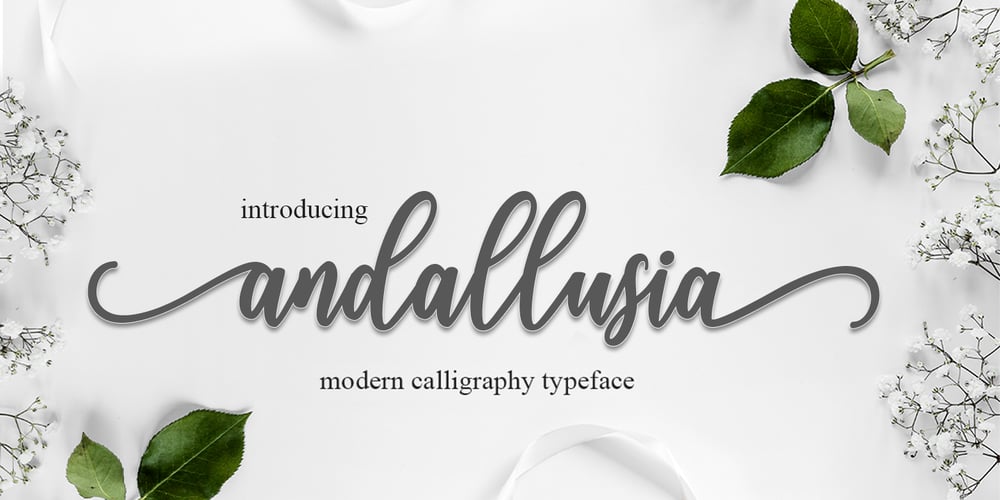
Andallusia Script Font Family was designed by Muhammad Rizal and published by MrLetters. Andallusia Script contains 1 styles and family package options. DescriptionAndalusia Script is perfect for branding, wedding invitations, magazines, mugs, business cards, quotes, posters, and many more that you can use on your big project will be very beautiful.Andalusia Script is equipped with the OpenType feature and has many glyphs. and of course having a lot of glyphs will be able to choose letters to your liking, lots of variations and choices for each letter, so you can customize your design choices and also support other languages.to use a variety of flying machines, you need a program that supports OpenType features such as Adobe Photoshop CS / Adobe Photoshop CC, Adobe Illustrator CS / Adobe Illustrator CC, Adobe Indesign and Corel Draw and many more programs that support OpenType.If you don’t have a program that supports OpenType, you can access all the alternate glyphs using Font Book (Mac) or Character Map (Windows)if you have any question, don’t hesitate to contact me by email. hello.mrletters@gmail.com Thanks and happy designing :-)Thank You for purchase